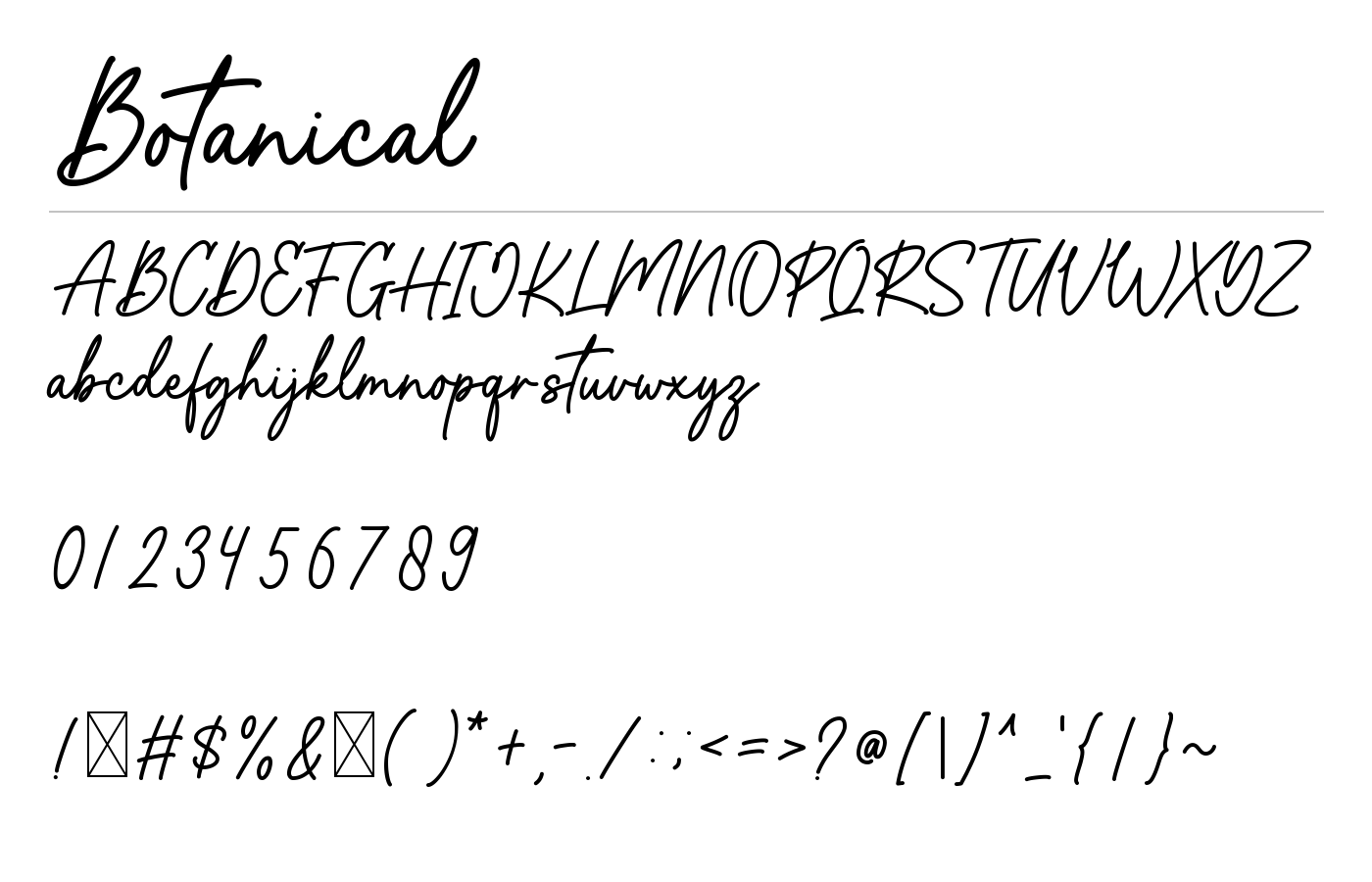
Botanical Font is a delicate, handwritten script with a light weight and a natural, flowing style that feels personal and approachable. Its tall x-height and slender, slightly irregular letterforms give it an organic, casual elegance perfect for creative projects, branding, and invitations where a warm, friendly touch is desired. This font works beautifully in headlines, logos, and packaging that aim to convey authenticity and charm.
Botanical Font
About Botanical Font